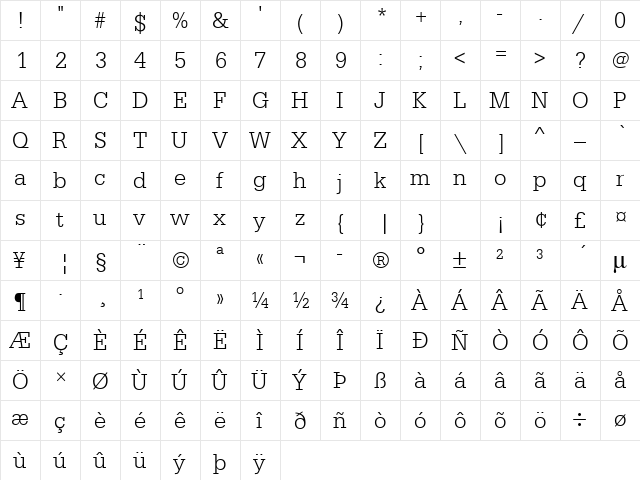
URWEgyptienneTLigNar Regular
Design Context for URWEgyptienneTLigNar Typeface
URWEgyptienneTLigNar offers clean, dependable letterforms without strong stylistic allegiance, making it a practical choice for designers who need flexibility.